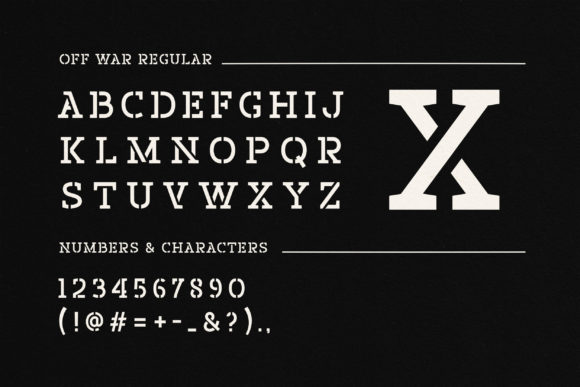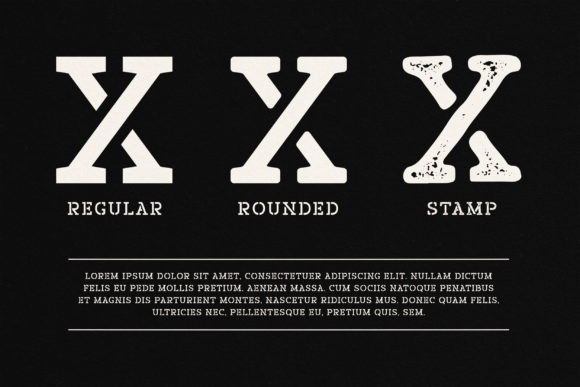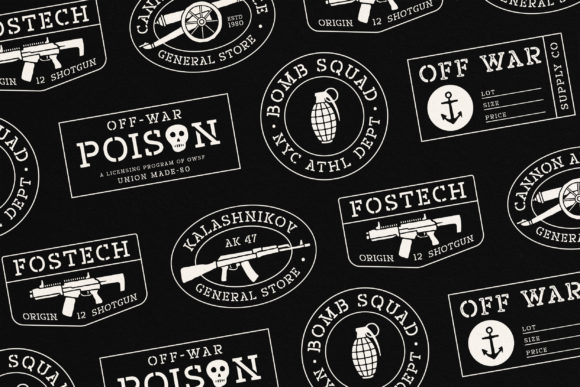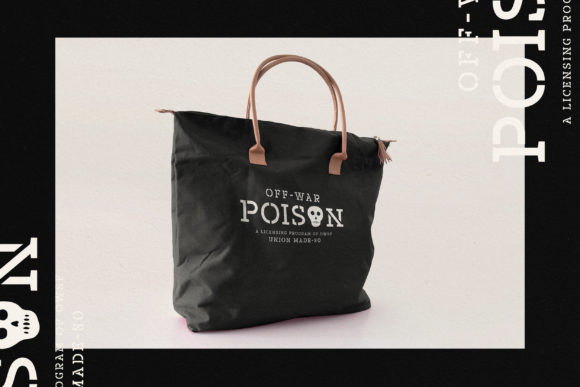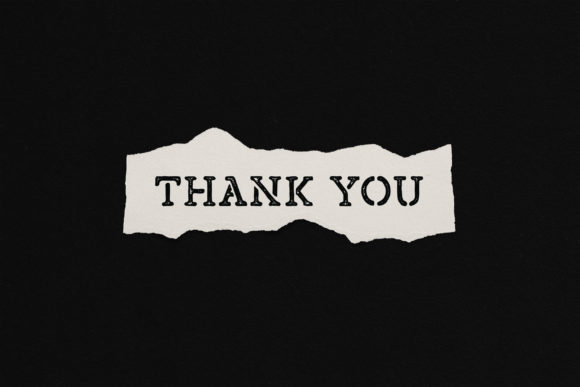
Introduction to Off War Font
Have you ever found yourself stuck in a creative rut, staring at a blank canvas or a blank document, desperately searching for the perfect font to bring your idea to life? For designers, this is a familiar feeling, and it’s a moment when the right font can make all the difference. That’s where the Off War Font comes in – a high-quality, unique slab serif stencil font that’s about to become your new best friend.
This versatile font comes in three styles: regular, rounded, and stamp, making it perfect for a wide range of design projects, from logos and badges to apparel and posters. With its transparent background and free download, the Off War Font is an invaluable design resource that’s waiting to elevate your creative project to the next level.
Key Features of Off War Font
- High-quality font design, ideal for creative projects and design resources.
- Features a transparent background, allowing for easy integration into various design elements.
- Includes multiple font styles, including regular, bold, and italic, to cater to diverse design needs.
- Designed with a unique aesthetic, making it an excellent choice for those seeking a distinctive look for their creative project.
Honest Review: Off War Font
I recently came across the Off War Font, and I must say it’s been a game-changer for my design projects. The font’s high quality and unique design make it a perfect addition to any creative project.
- Transparent background – The font’s transparent background makes it incredibly versatile and easy to work with.
- Unique design – The Off War Font’s distinctive design is perfect for adding a touch of personality to any project.
One thing I’d like to see improved is the font’s limited font sizes. While it’s great for smaller projects, it may not be ideal for larger, more complex designs.
Overall, I’m thoroughly impressed with the Off War Font. Its unique design and high quality make it a valuable addition to any design resource collection. Whether you’re working on a personal project or a commercial design, the Off War Font is definitely worth checking out.
Getting the Most Out of Off War Font
To get the most out of Off War Font, use it in combination with other design elements to create a visually appealing design. Experiment with different font sizes, colors, and styles to find the perfect balance for your project.
Off War Font is perfect for creative projects such as logos, brochures, and business cards. Its high-quality design and transparent background option make it an ideal choice for designers who want to create professional-looking projects with ease.
Q: Is the Off War Font suitable for use on a transparent background?
Yes, the Off War Font has a transparent background, making it ideal for use on designs with complex backgrounds or for creating high-quality, layered designs. The font’s transparent background also makes it easier to use in creative projects that require precise control over the background and foreground elements.